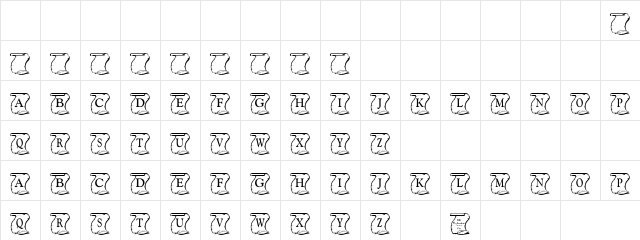
AIN Messenger Regular
Design Context for AIN Messenger Typeface
AIN Messenger is a composed and adaptable typeface that performs quietly and consistently across a wide range of design contexts.